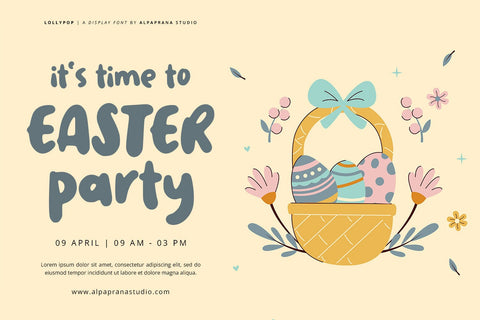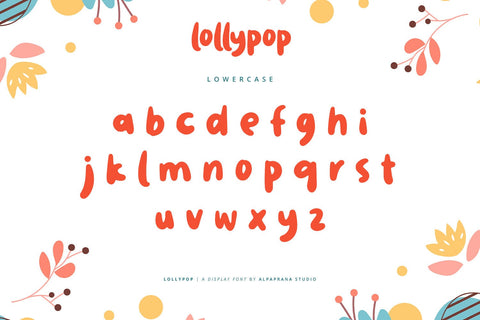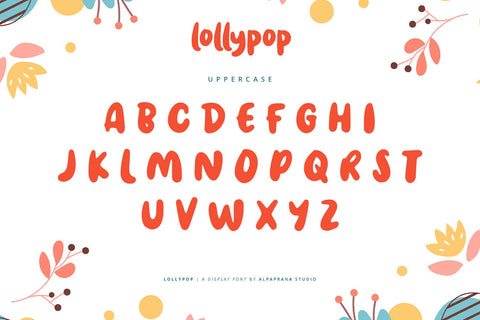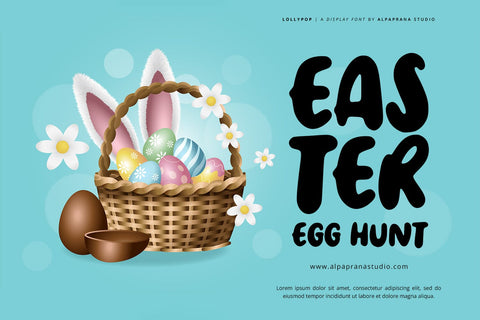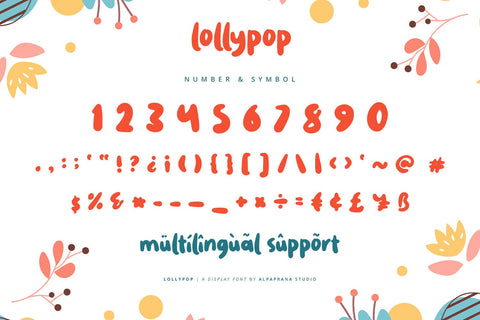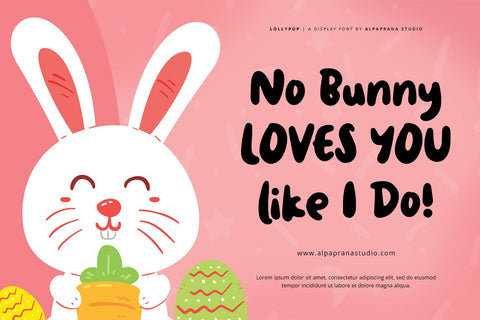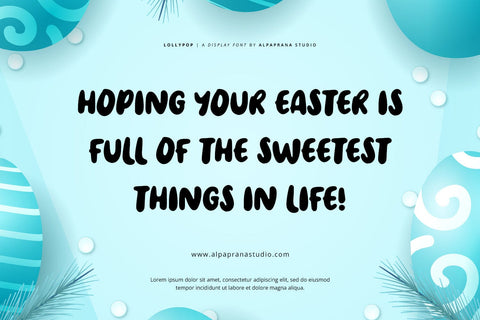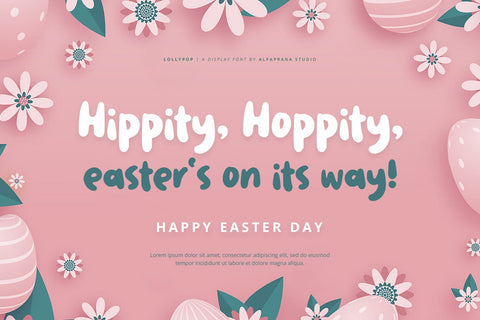
Lollypop - Display Font
Lollypop is a display font with cute and playful feels. It will be perfectly used for Branding, Logo Design, Lettering, Logotype, Clothing, Poster, magazine, packaging, posters, shopping bags, t-shirts, book covers, photography, special events and other design project.